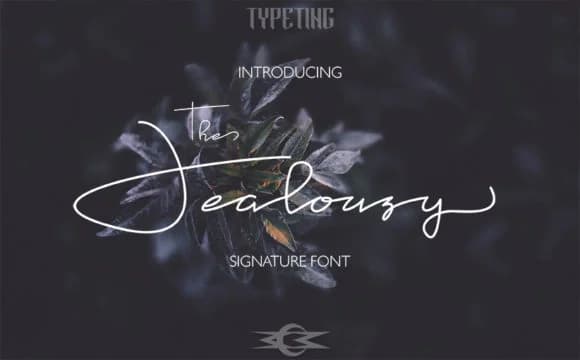
Jealousy Font by Typeting Studio is a flowing signature script that captures the refined elegance of handwritten penmanship. With its smooth, connected letterforms and polished execution, this typeface brings an authentic personal touch to any creative project requiring genuine character and visual sophistication.
The script excels across numerous applications where handwritten aesthetics establish brand identity and emotional resonance. Create wedding invitation suites that feel intimate and personalized, or design greeting card collections that communicate authentic charm to recipients. High-end cosmetics packaging and boutique product labels gain a premium quality from this typeface's distinctive upscale style and refined curves. Restaurant menus, event announcements, luxury branding materials, and personalized stationery all benefit from the script's flowing letterforms and sophisticated character. The typeface also shines in social media graphics and digital branding contexts where personality and visual distinction matter.
Whether you're developing a distinctive brand identity for a boutique business, crafting sophisticated header designs, or producing custom event materials, Jealousy offers substantial design flexibility. The script delivers visual impact across both digital and print mediums while maintaining excellent readability in various sizes and applications. Add Jealousy Font to your Creative Fabrica collection and bring signature-style elegance to your next design project.
Jealousy Font is a script font that shines as a display or heading face. Pair it with a clean sans-serif or serif font for body text β the contrast creates a clear hierarchy while the two styles stay balanced and easy to read.
Jealousy Font